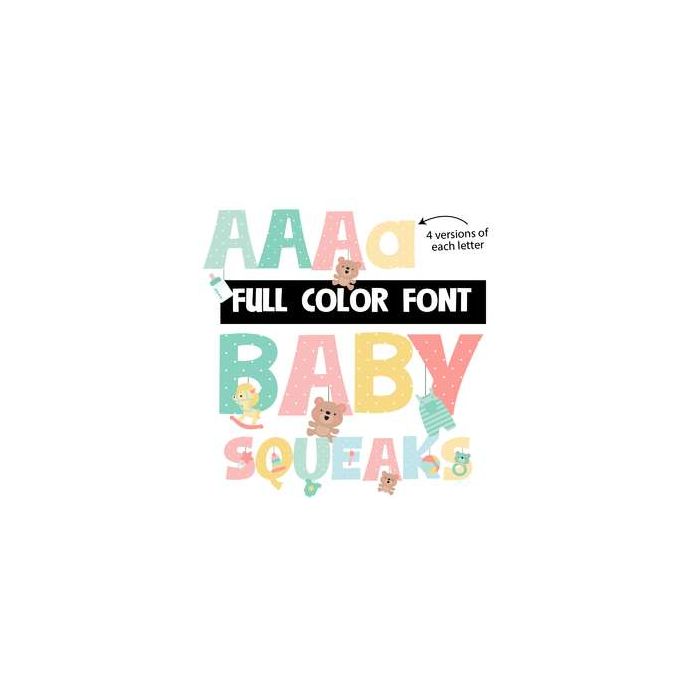
This full-color font features fun, baby items hanging on a colorful font. There is an upper and lowercase alt case you can access through your system's character map. This font works best for titles, displays, posters and more. Please note color fonts will show as black in non compatible programs. This font type is compatible with Silhouette Studio.